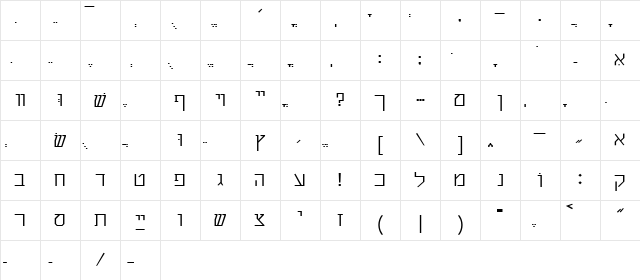
Complete HebrModern Becker Normal glyph index. Displaying only characters natively supported by HebrModern Becker Normal font.
HebrModern Becker is a composed and adaptable typeface that performs quietly and consistently across a wide range of design contexts.